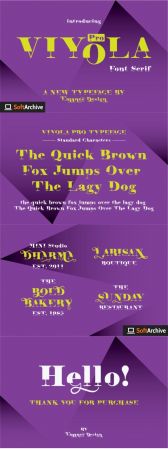
Viyola is an incredibly bold and unique serif font. It is ideal for a wide set of designs, be it formal and non-formal ones. Use your imagination and make your projects stand out with Viyola!